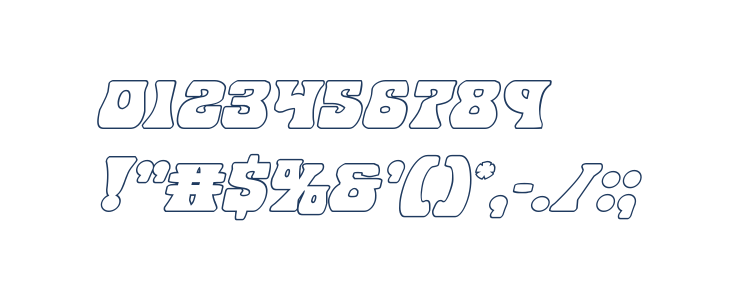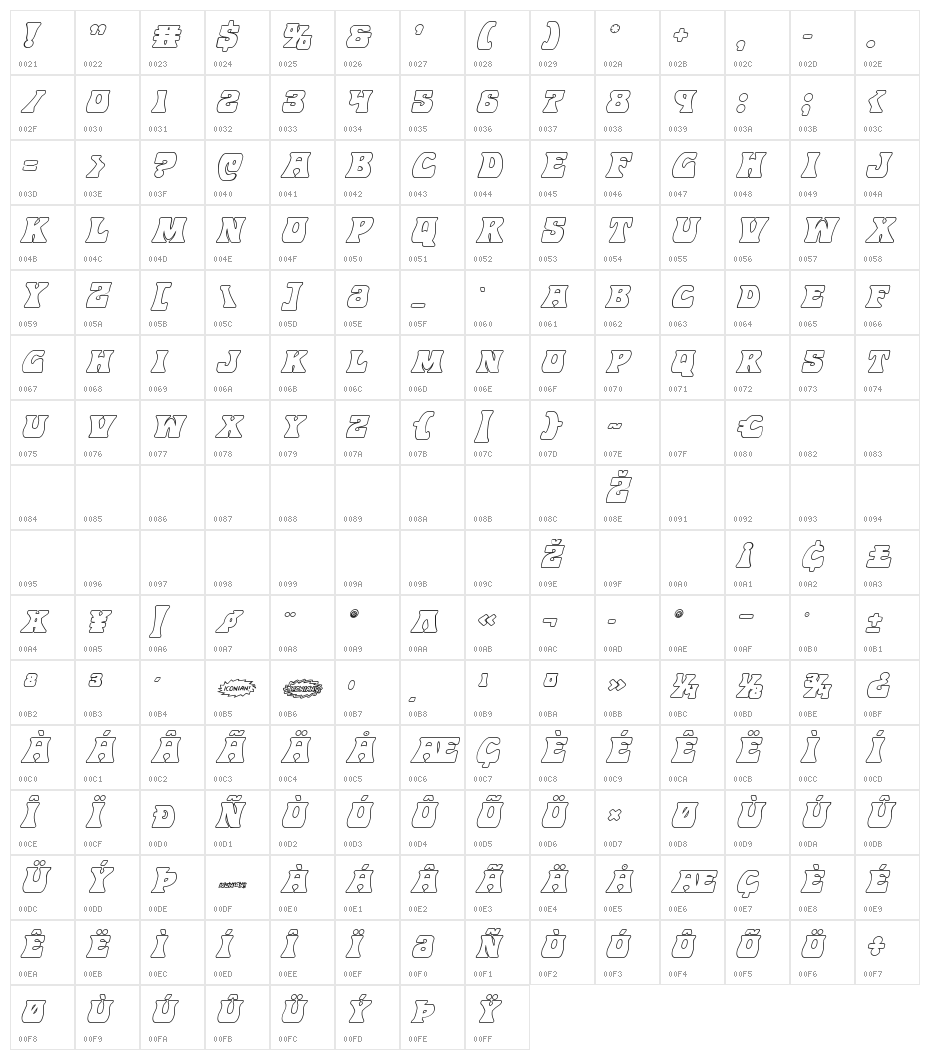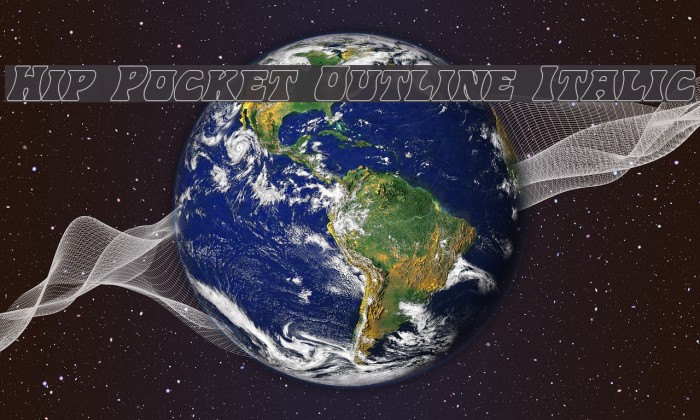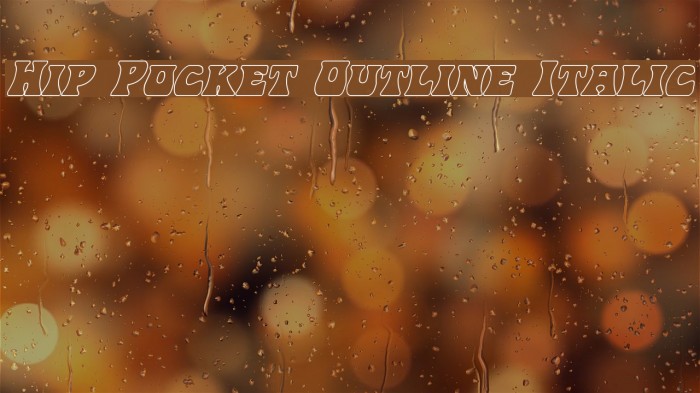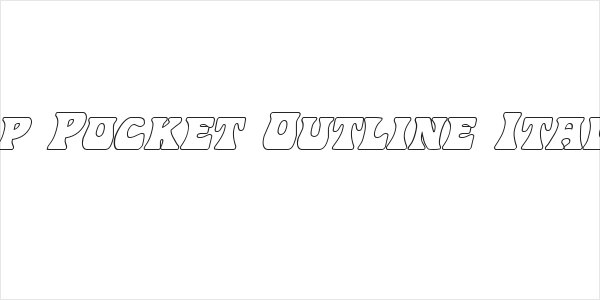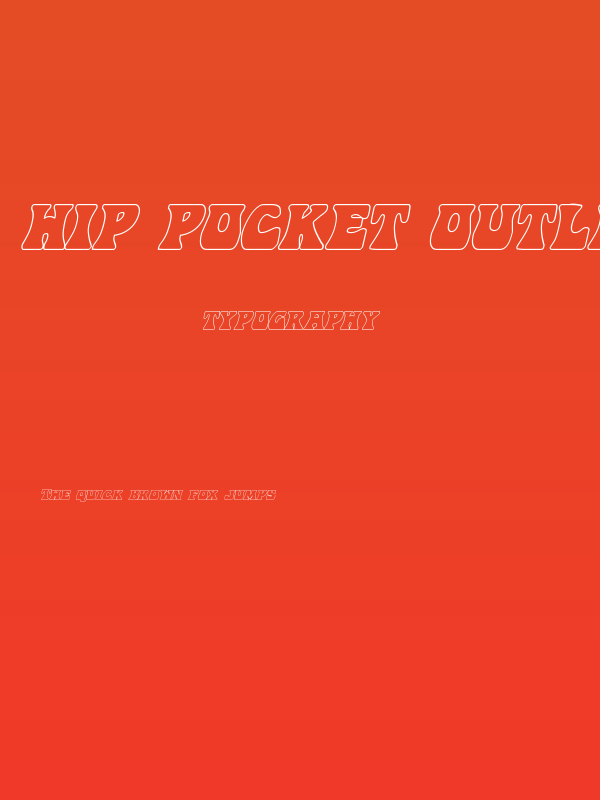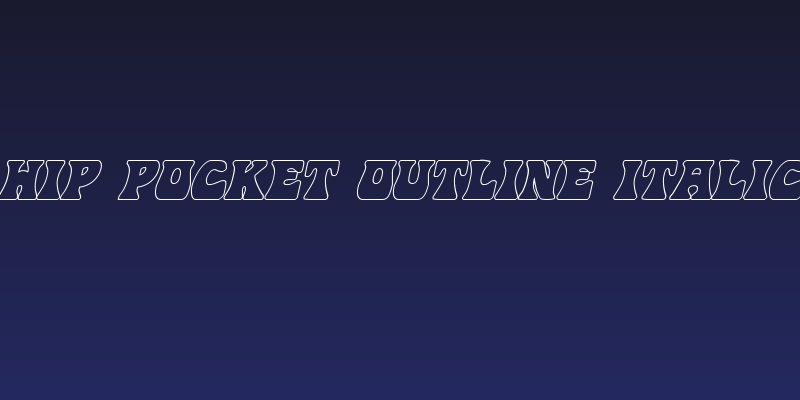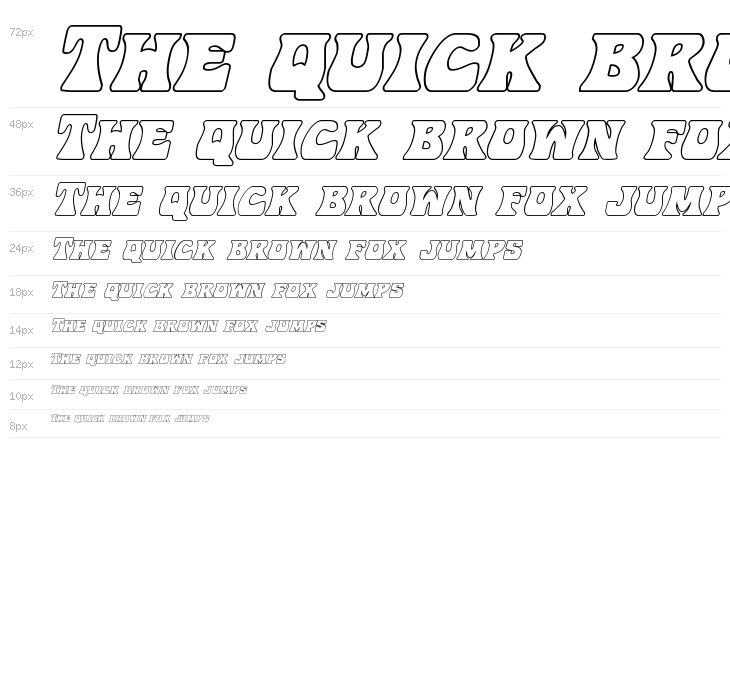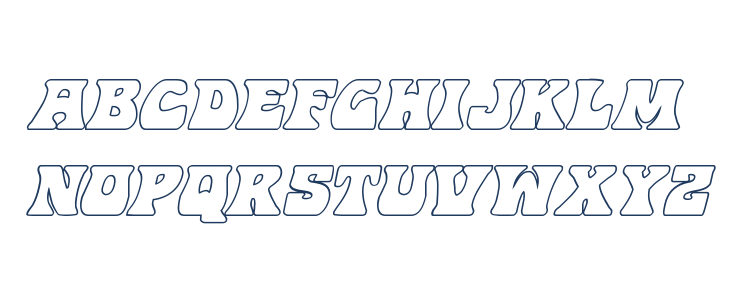
Hip Pocket Outline Italic Font
Hip Pocket Outline Italic Description
This font features a bold, playful outline style with a distinct italic slant, giving it a dynamic and energetic appearance. The characters are well-defined with thick outlines that create a strong visual impact. The uppercase and lowercase letters maintain a consistent style, with rounded edges and a slightly condensed form. The numerals and special characters follow the same design principles, ensuring uniformity across all glyphs. This font's unique outline and italicized form make it stand out, suitable for creative and eye-catching designs.